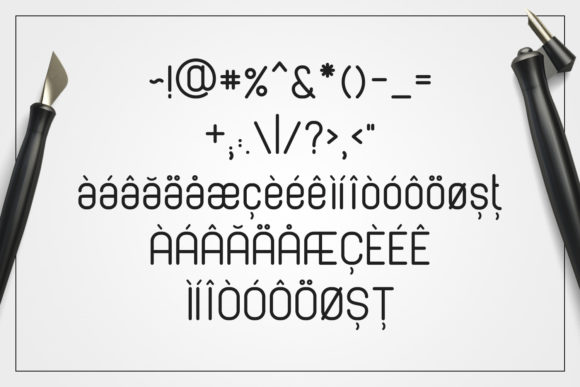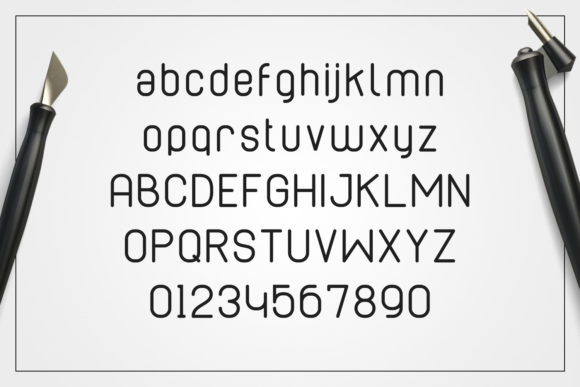
Cabo Rounded Regular Font: Elevate Your Designs with a Modern Twist
In the world of typography, fonts play a crucial role in conveying the message and aesthetic of a design. For designers and crafters looking for a modern and clean sans serif font, Cabo Rounded Regular is an excellent choice. This versatile font can easily be matched to an incredibly large set of projects, making it a valuable addition to your creative toolkit.
What is Cabo Rounded Regular Font?
Cabo Rounded Regular is a contemporary sans serif font that boasts a clean and minimalist design. Its rounded edges give it a friendly and approachable feel, making it perfect for a wide range of applications. Whether you’re working on a branding project, a website, or a craft, this font is sure to make your designs stand out.
Key Features of Cabo Rounded Regular Font
- Modern and Clean Design: Cabo Rounded Regular features a sleek and modern design that will give your projects a fresh and contemporary look.
- Sans Serif: The font’s sans serif design makes it easy to read and versatile for various applications.
- Rounded Edges: The rounded edges of the font give it a friendly and approachable feel, making it perfect for designs that require a softer touch.
- Highly Versatile: Cabo Rounded Regular can be used in a wide range of projects, from branding and advertising to websites and crafts.
Use Cases for Cabo Rounded Regular Font
Cabo Rounded Regular is an incredibly versatile font that can be used in various design projects. Here are some use cases to consider:
- Branding and Logo Design: Use Cabo Rounded Regular to create a modern and clean logo that will help your brand stand out.
- Website Design: This font is perfect for website design, especially for websites that require a clean and modern aesthetic.
- Advertising and Marketing: Cabo Rounded Regular can be used in advertising and marketing materials, such as brochures, flyers, and posters.
- Crafts and DIY Projects: This font is also suitable for crafters and DIY enthusiasts who want to add a personal touch to their projects.
Benefits of Using Cabo Rounded Regular Font
Using Cabo Rounded Regular font in your designs offers several benefits:
- Unique and Modern Look: This font will give your designs a unique and modern look that will help you stand out from the crowd.
- Easily Readable: The clean and sans serif design of Cabo Rounded Regular makes it easily readable, even at small font sizes.
- Versatile: This font can be used in a wide range of projects, making it a valuable addition to your font library.
- Time-Saving: With Cabo Rounded Regular, you can save time and effort in finding the perfect font for your projects.
In conclusion, Cabo Rounded Regular is a modern and clean sans serif font that is perfect for designers and crafters looking for a versatile and unique font. Its rounded edges and clean design make it easily readable and suitable for a wide range of projects. With its highly versatile nature, Cabo Rounded Regular is an excellent addition to your creative toolkit.